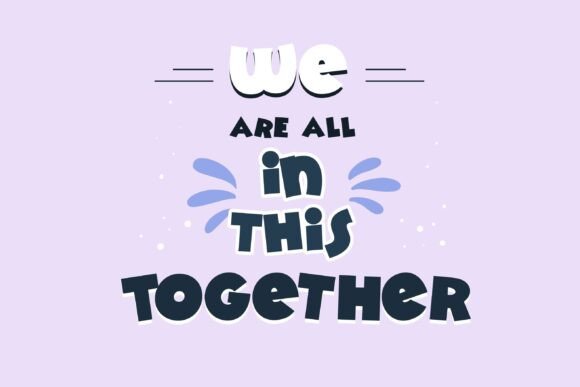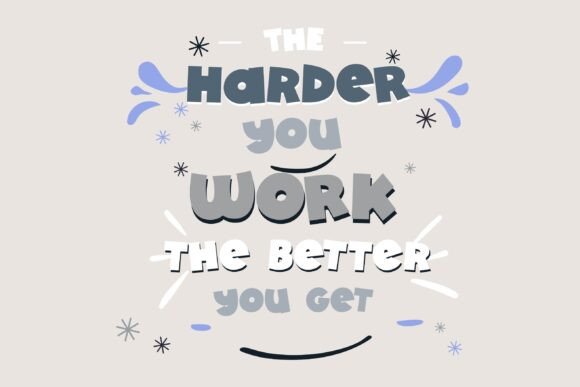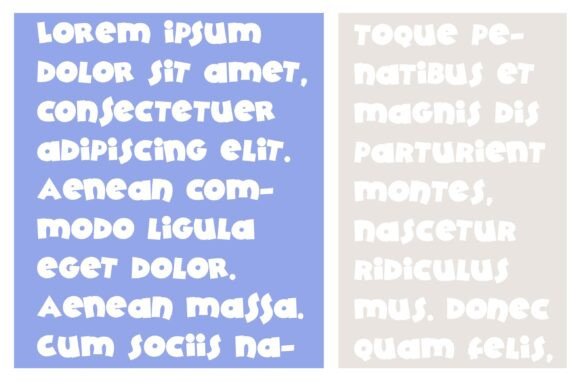
Mickleton Font
This hand-crafted font is a whimsical sans serif with chunky, thick, whimsical, lettering.A hand-crafted font is a font that is designed to look like it was written by hand. It is often used for invitations, greeting cards, and other items. Handwritten fonts can be either formal or informal, and they can be used for a variety of purposes.